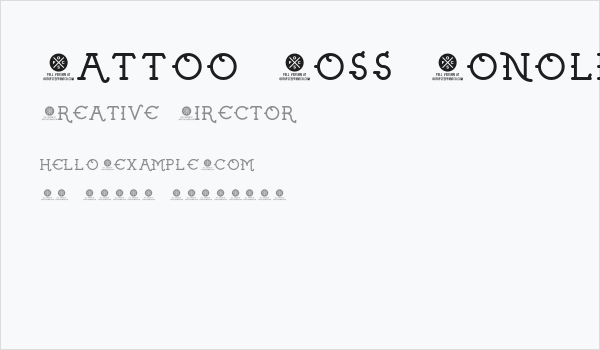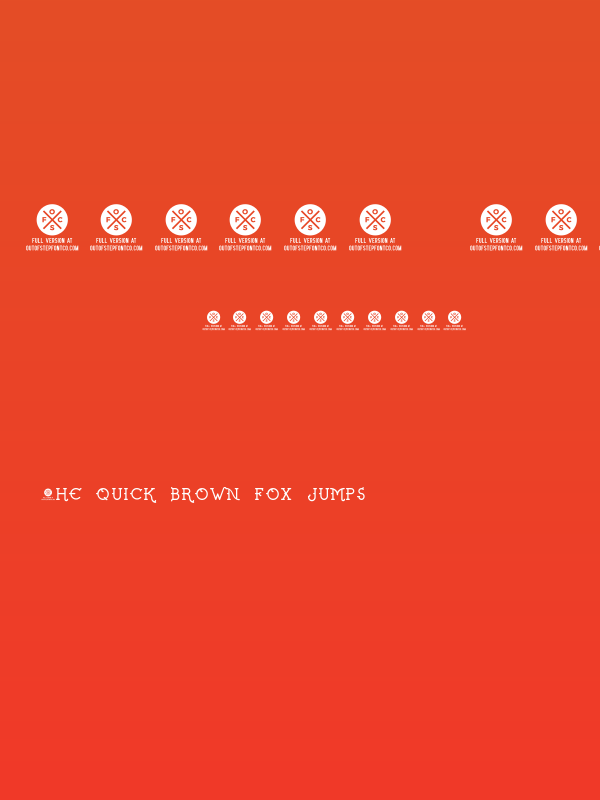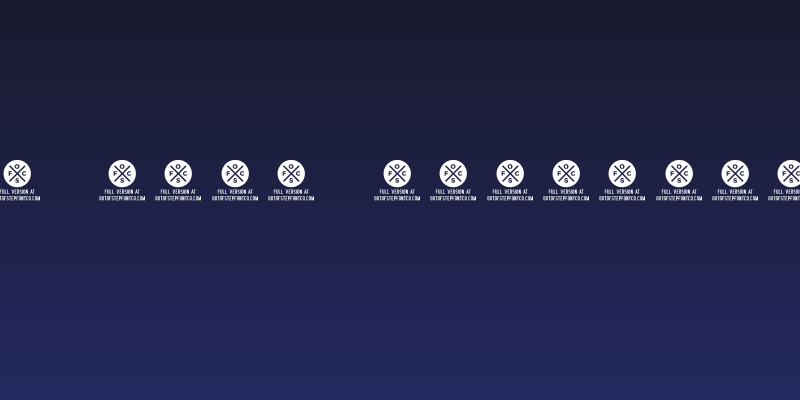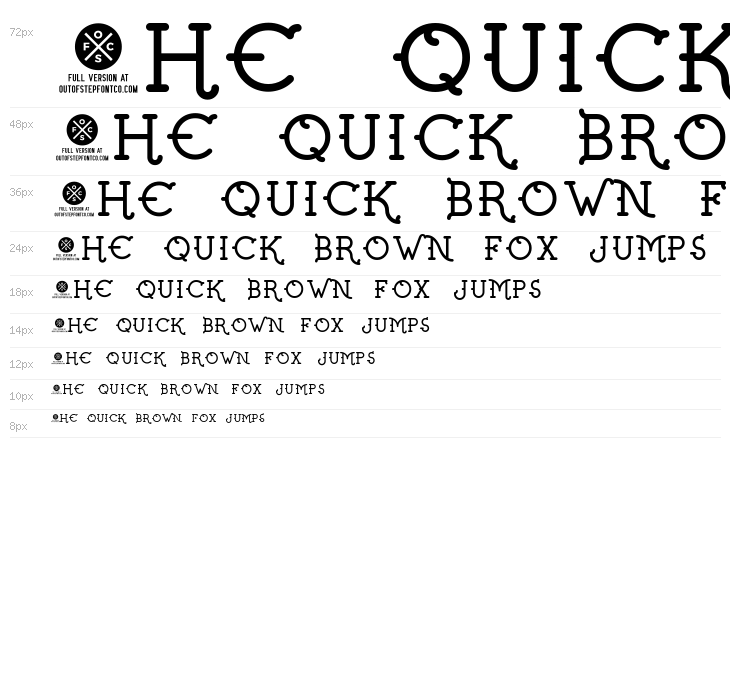
Tattoo Boss Monoline Demo Font
Tattoo Boss Monoline Demo Description
This font features a unique blend of vintage and modern aesthetics, characterized by its monolinear strokes and decorative elements. Each letter is crafted with a consistent line weight, giving it a clean and uniform appearance. The font includes distinctive serifs and subtle flourishes that add a touch of elegance and sophistication. Its bold presence makes it suitable for eye-catching designs, while the intricate details provide a sense of artistry and craftsmanship. The overall style is both classic and contemporary, making it versatile for various design projects.
| Use Case | Headlines, Logos, Decorative text |
| Proposed Projects | Ideal for tattoo designs, branding, logos, and decorative headlines. |